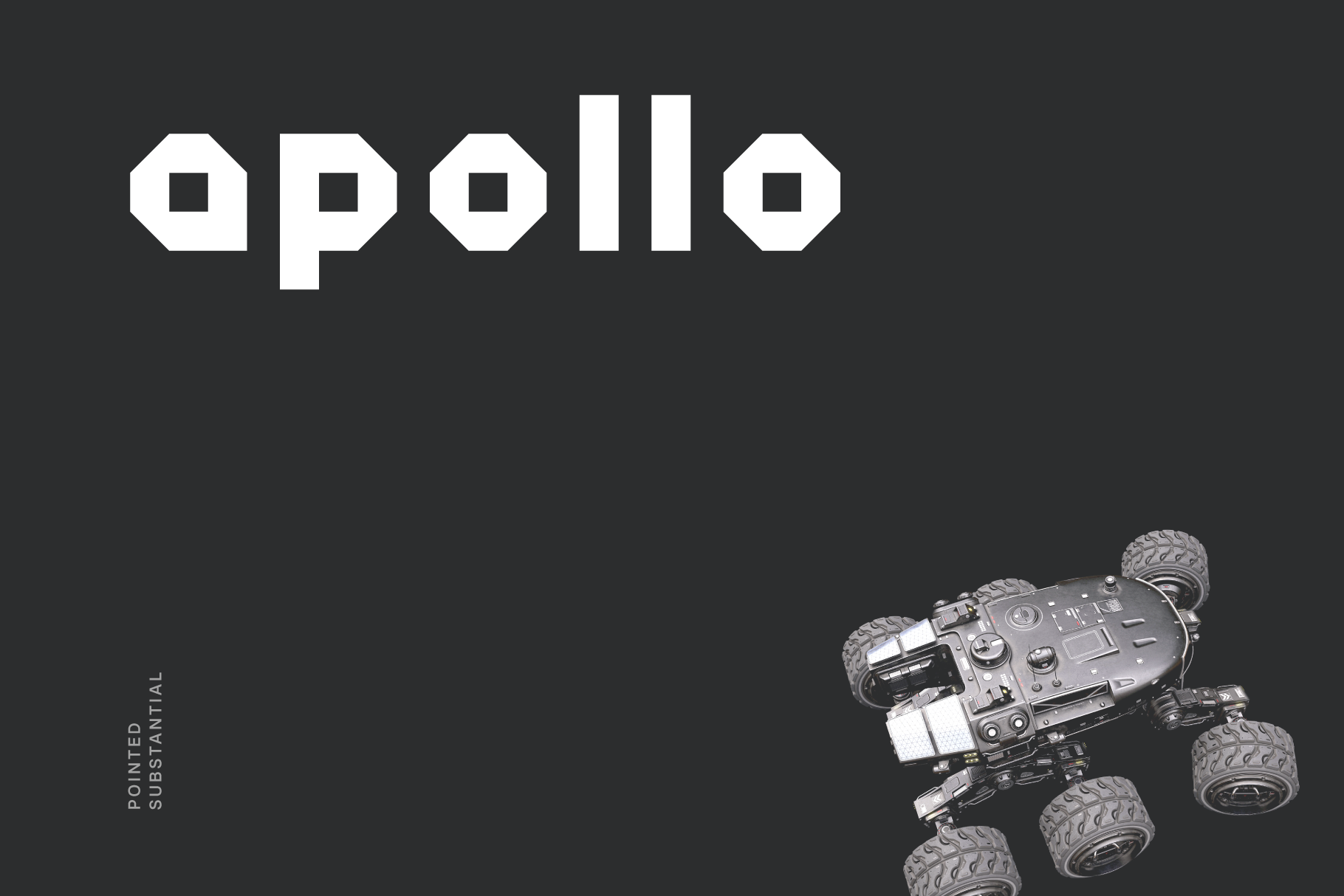
Apollo Futuristic Tech Font
Apollo is a pointed substantial tech sans apt for headline, editorial, branding, packaging, printed materials and typographic applications. 150+ glyphs with ligatures and fractions provided in opentype .otf and .woff format.